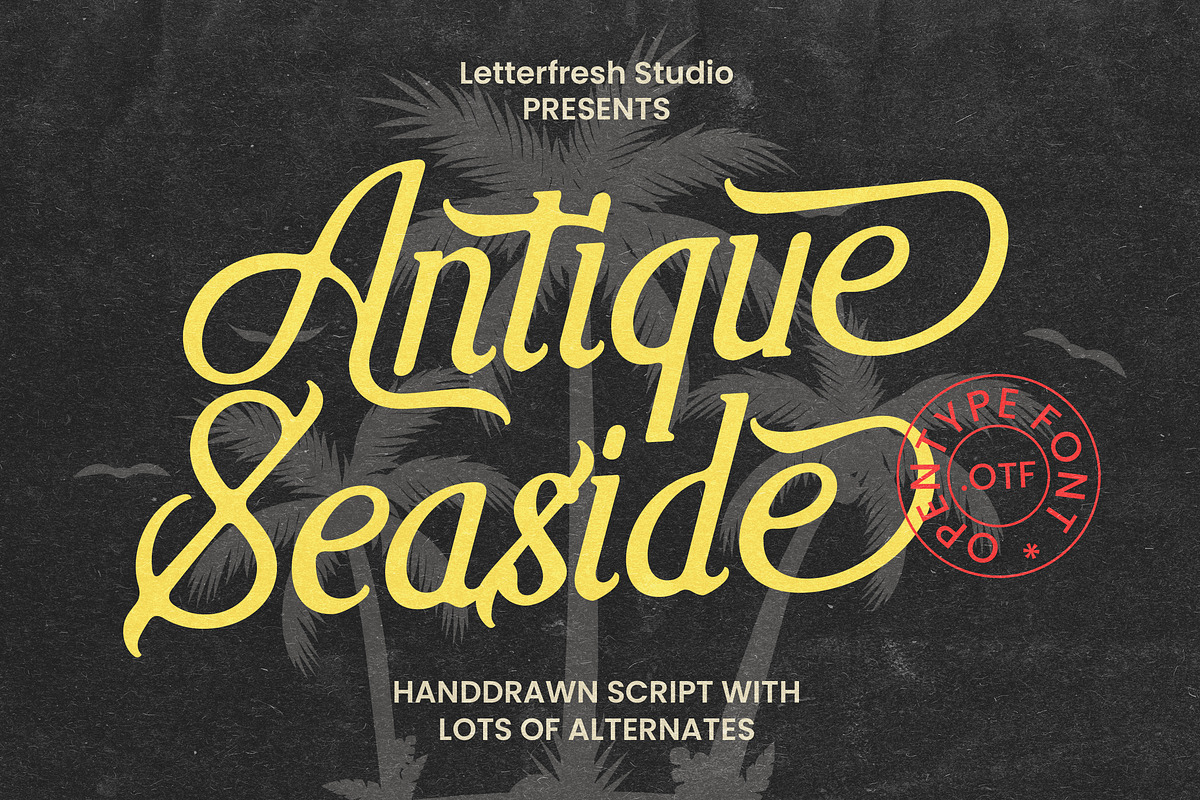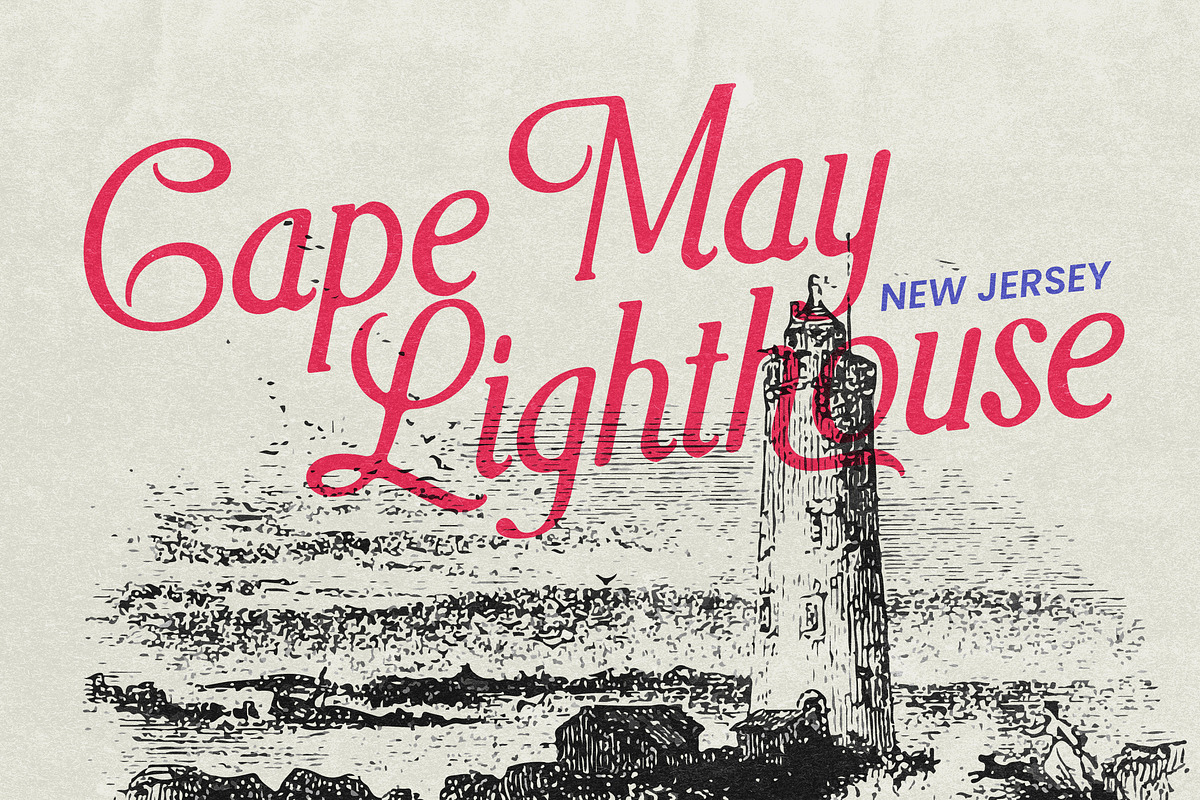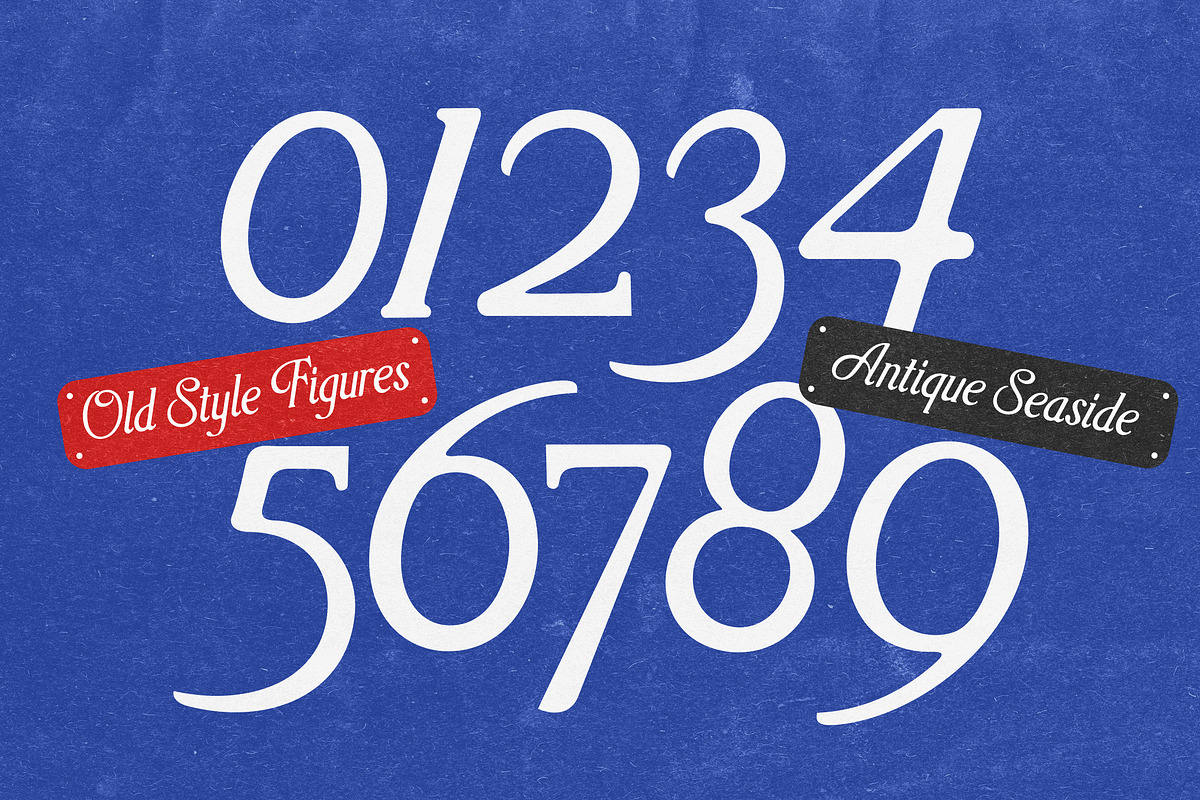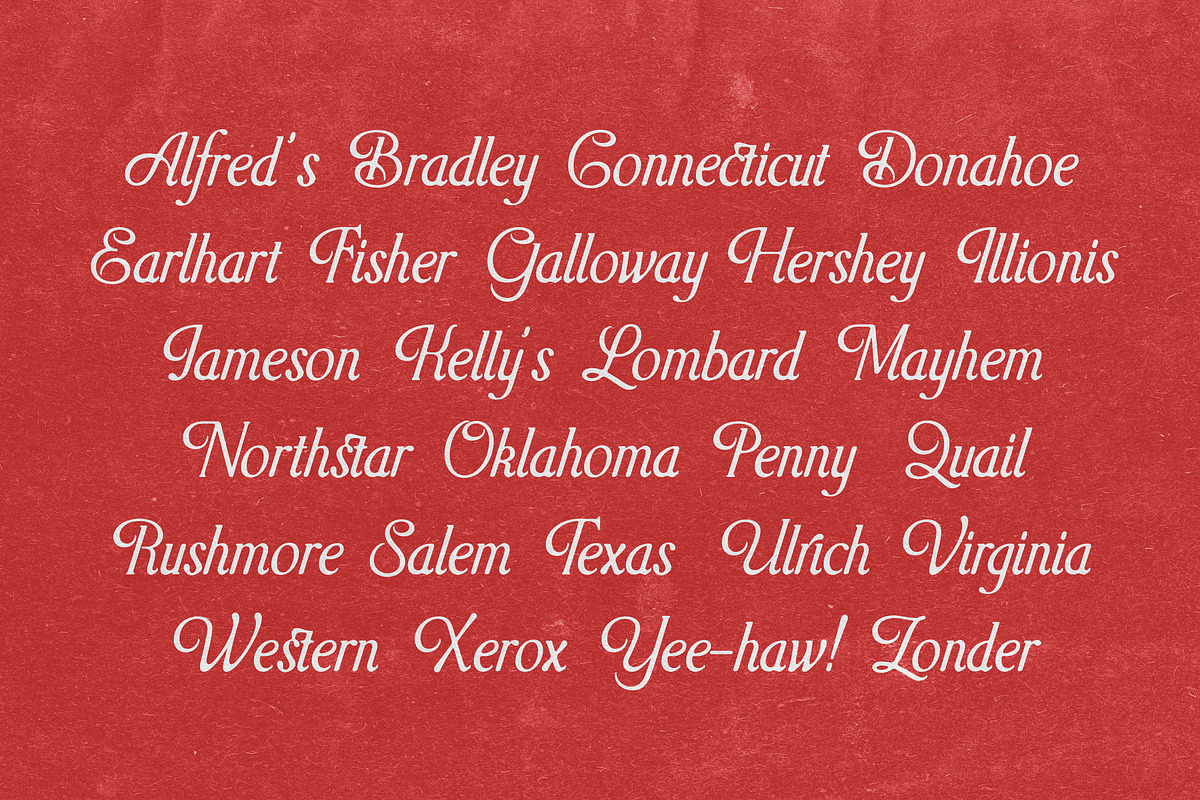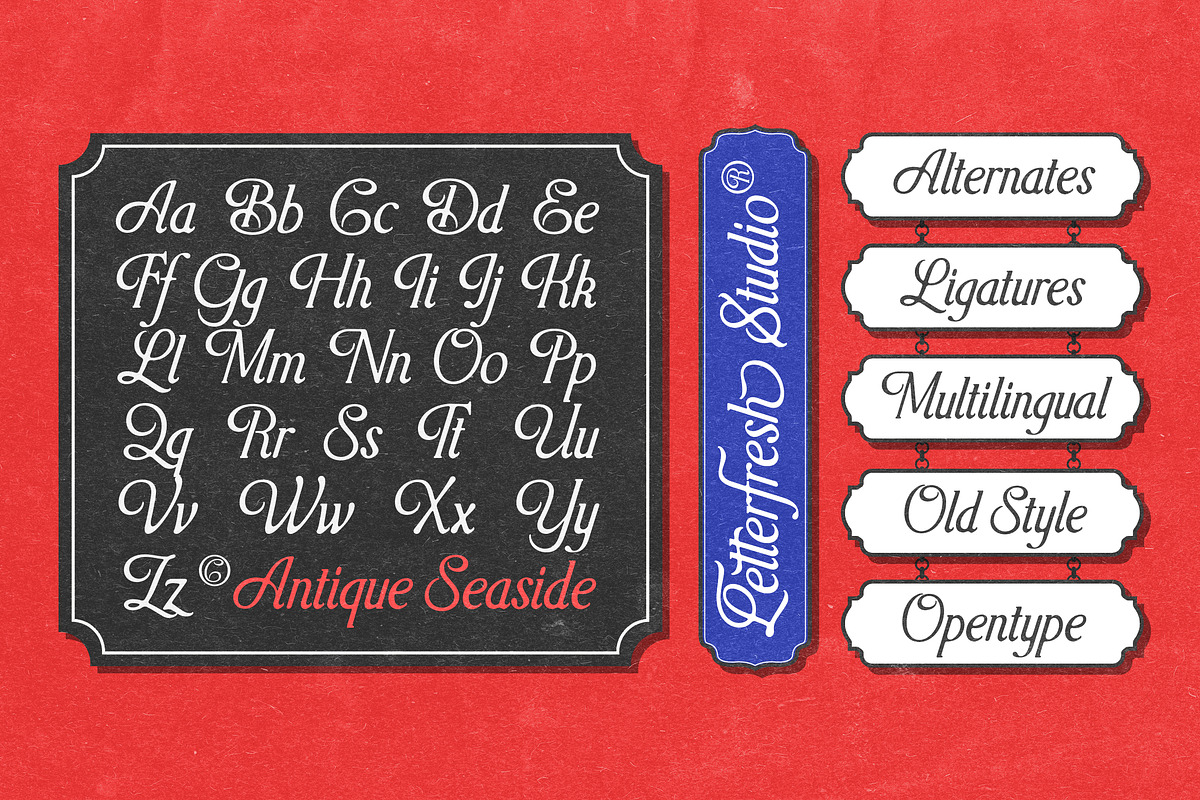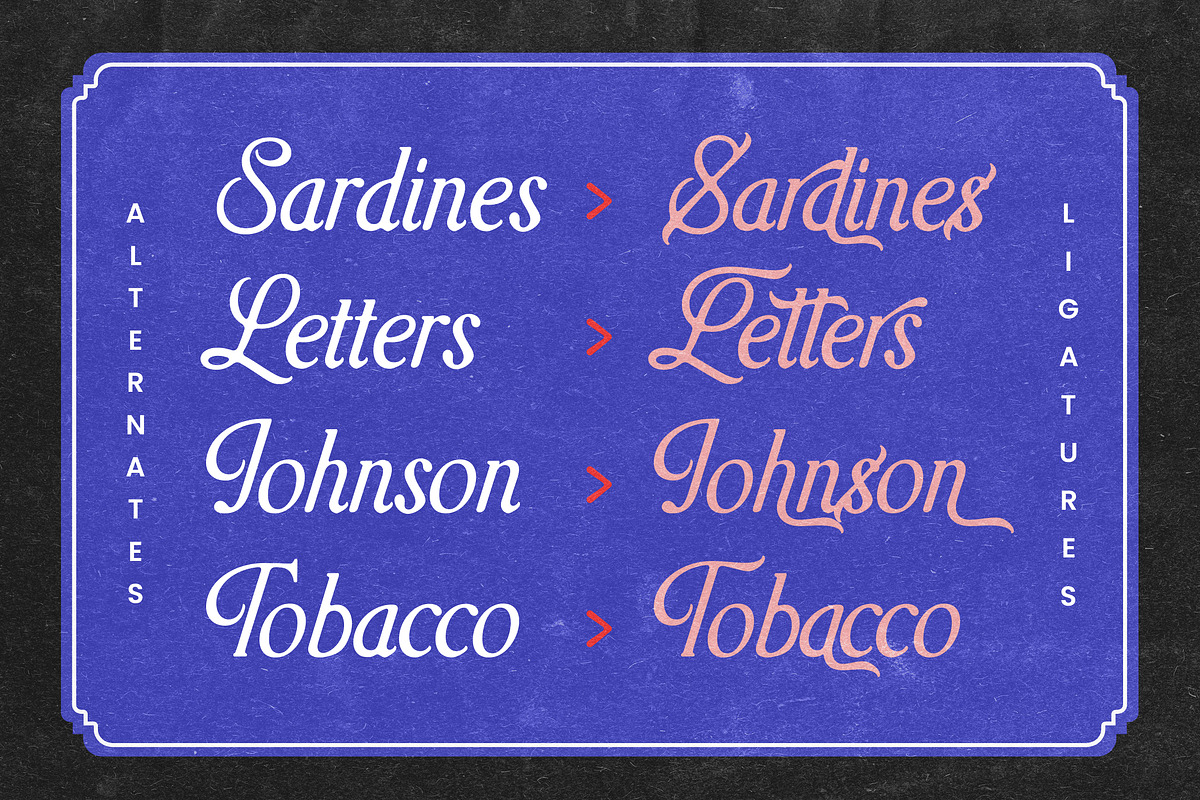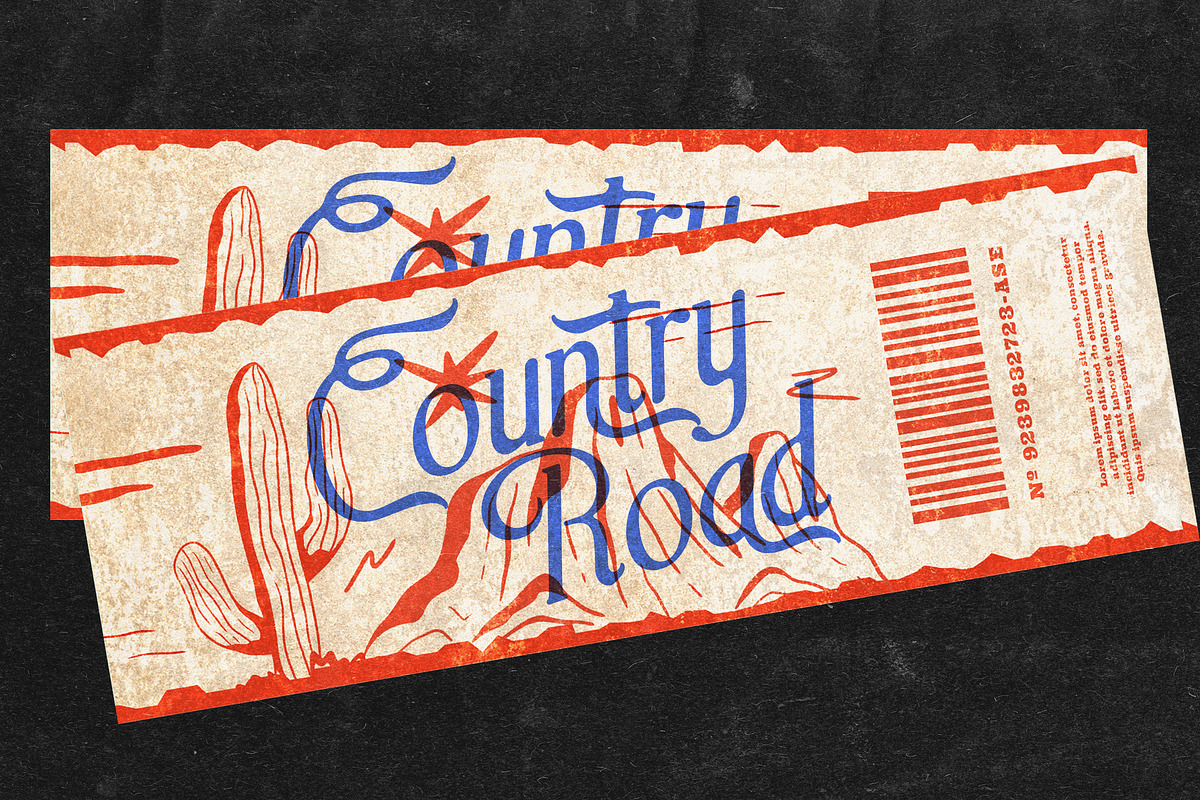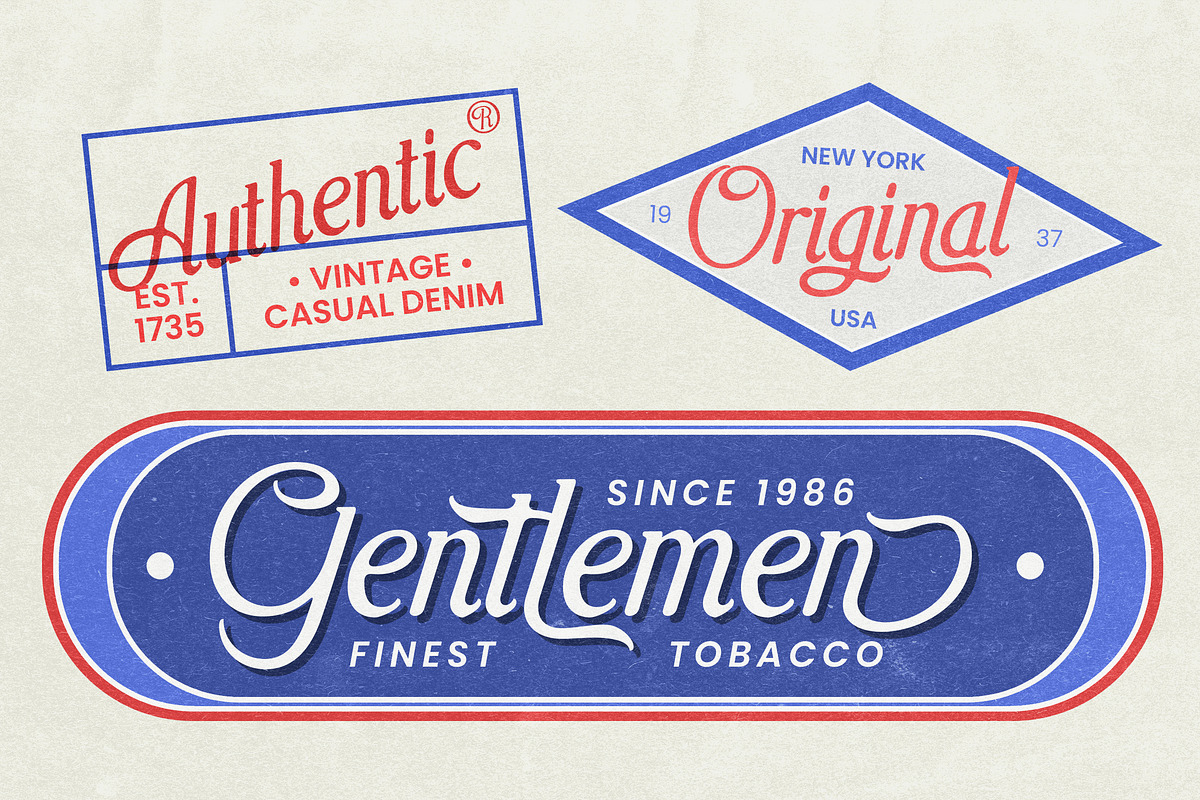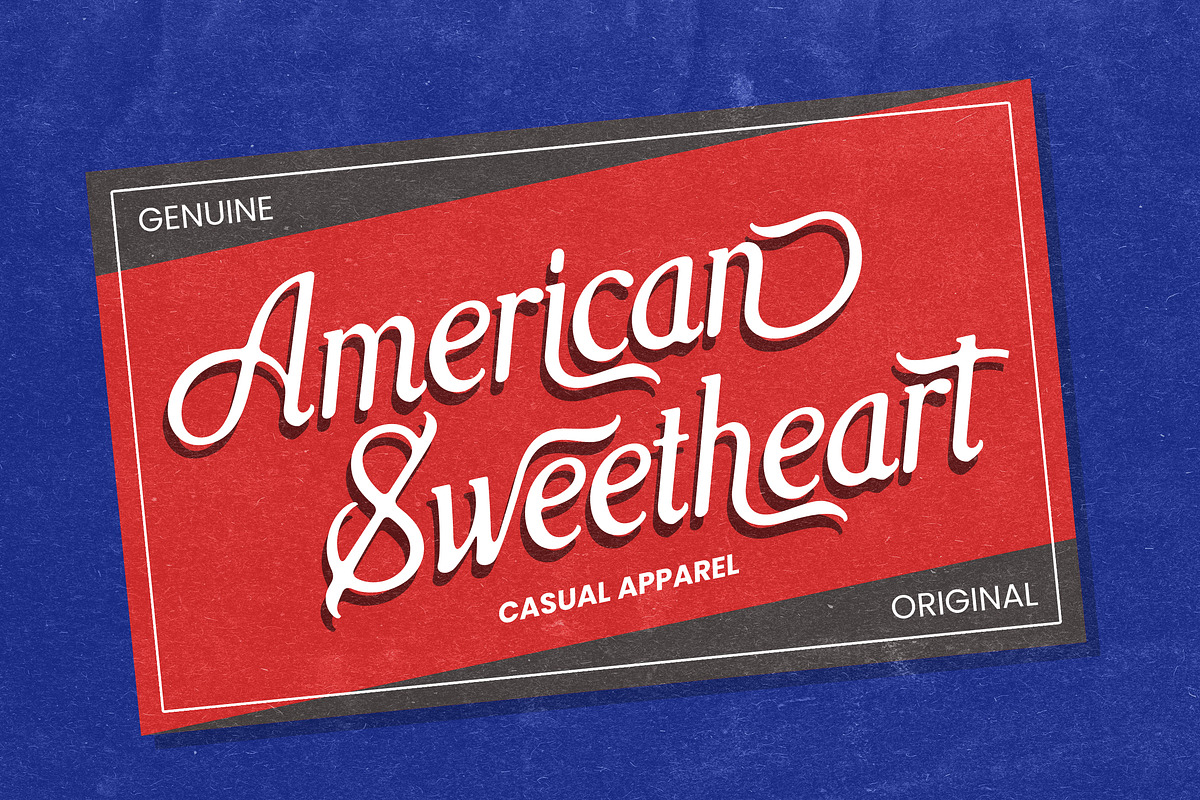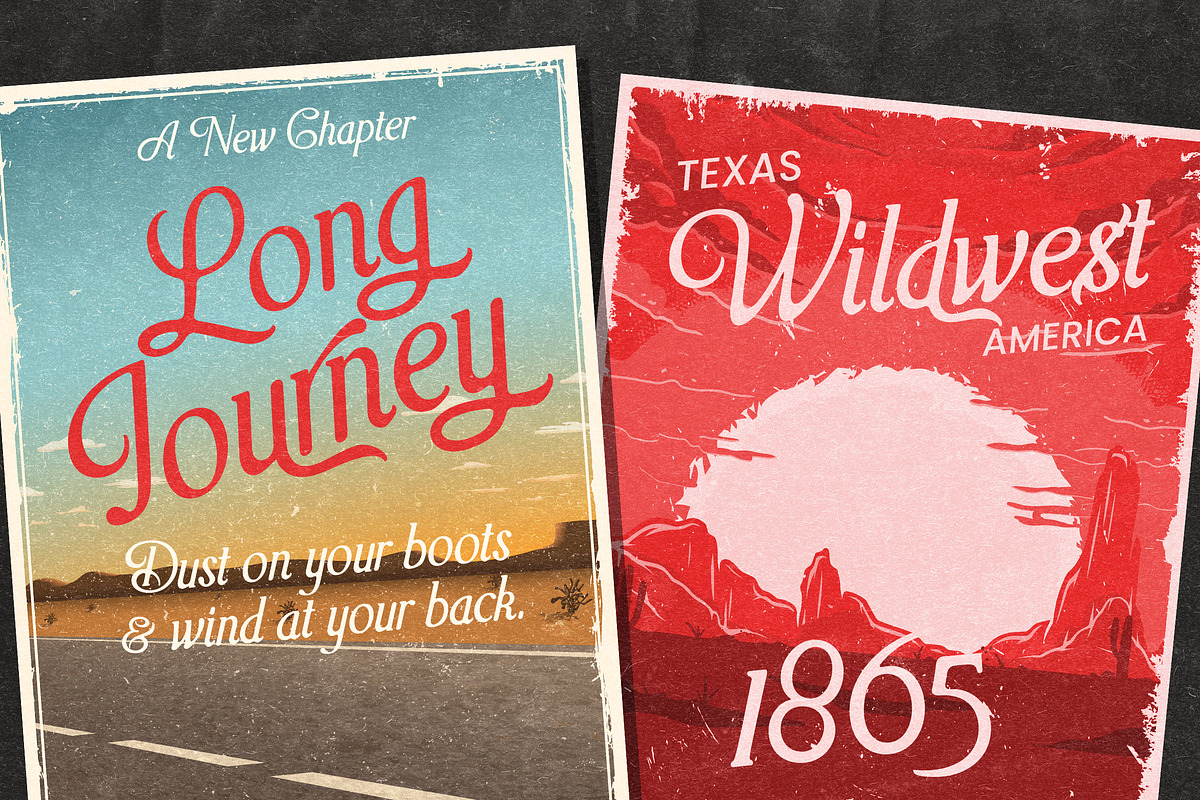
Antique Seaside
Antique Seaside is a bold font with a vintage look and rough edges. You can use this font for a variety of purposes, including posters, logos, quotes, and more. With stylish alternatives, you can make your designs look stunning and stand out. This font also supports multiple languages. Let this font make your next project look great!